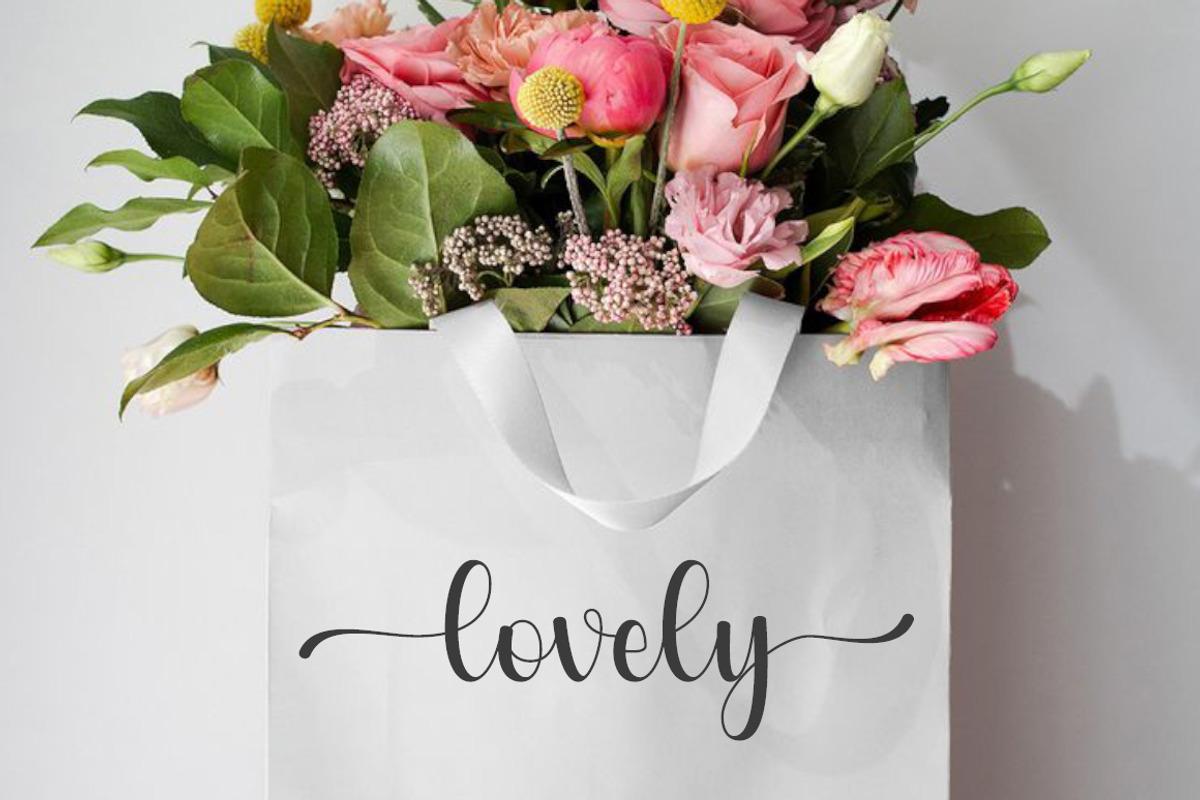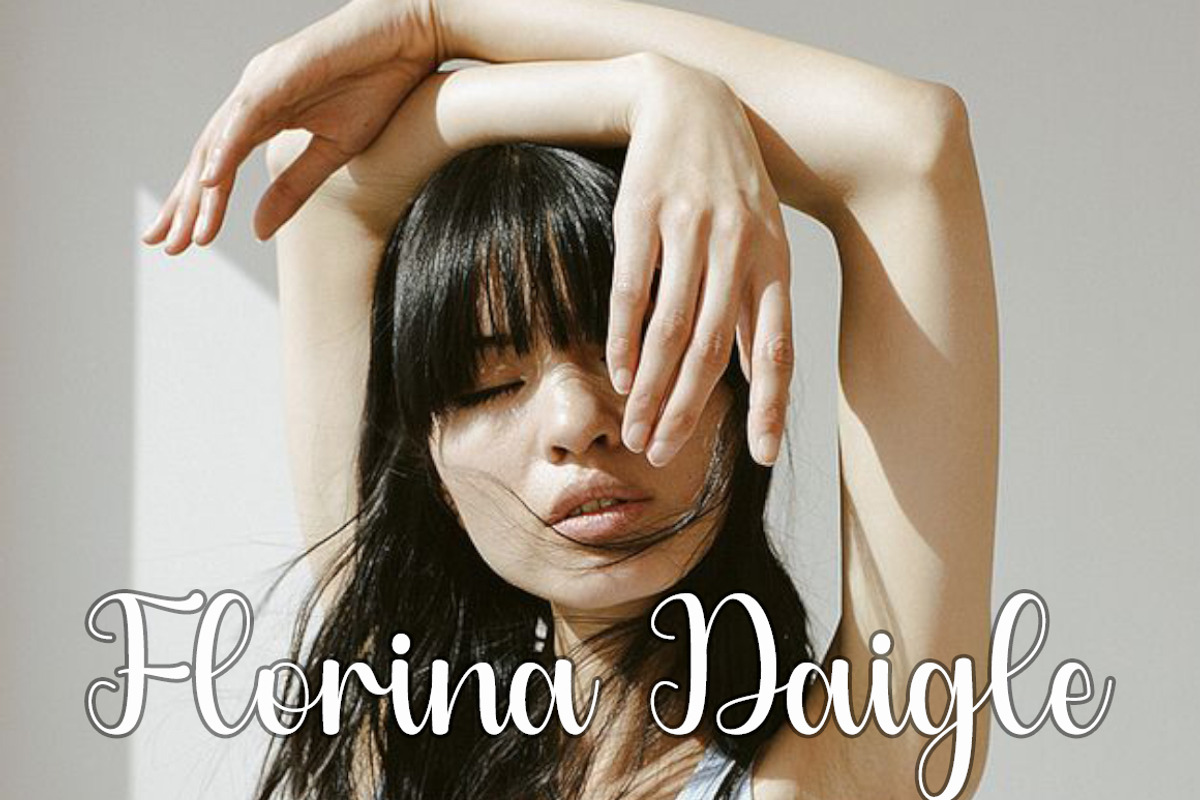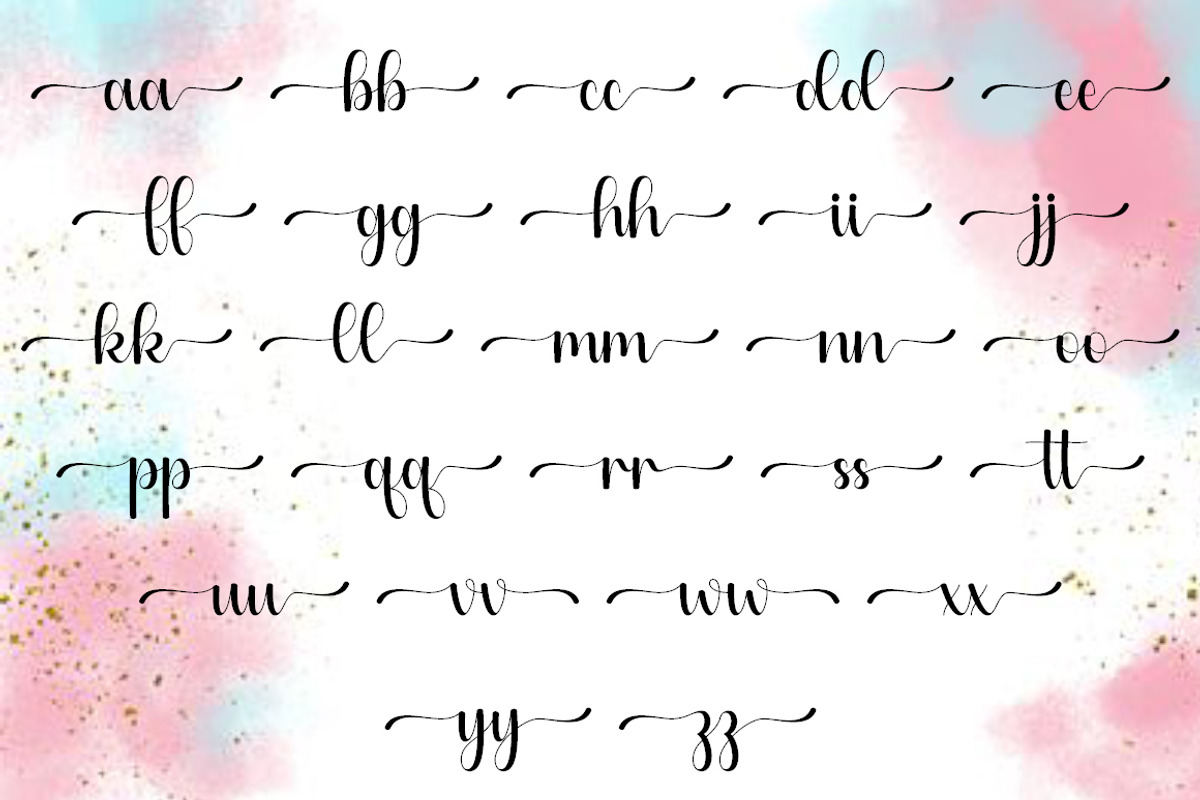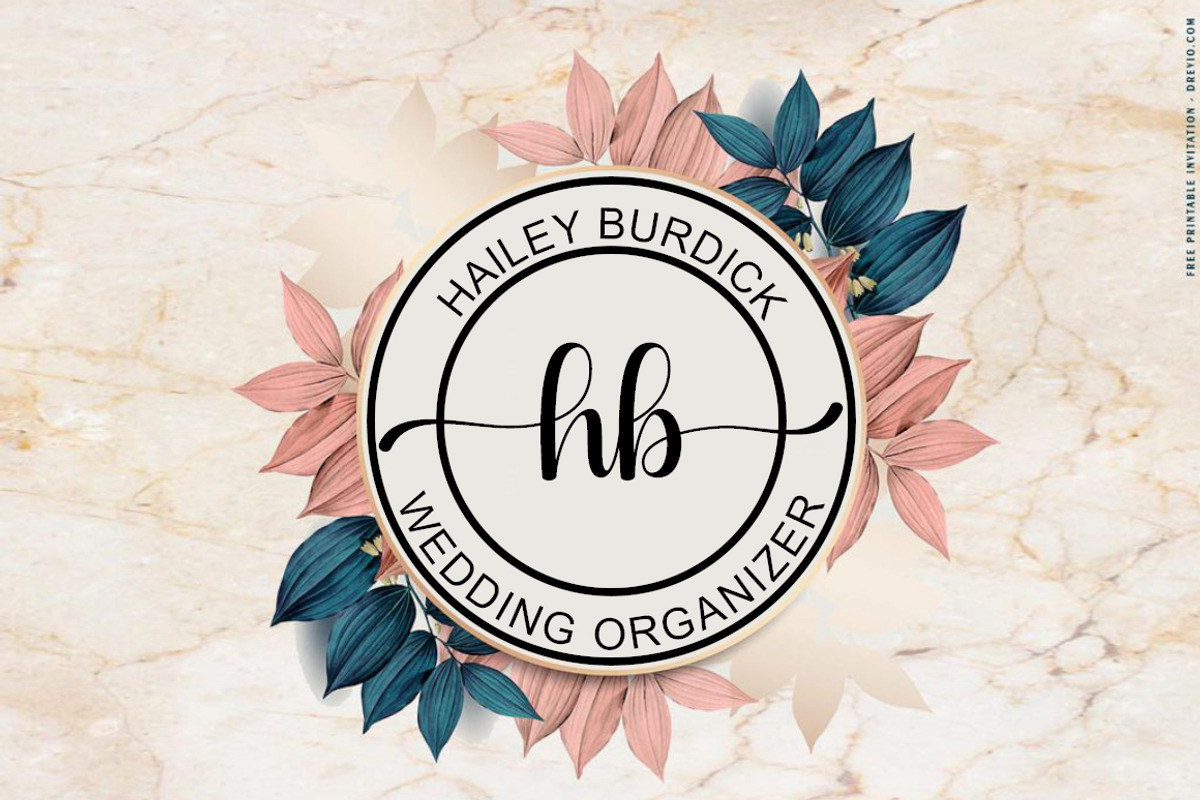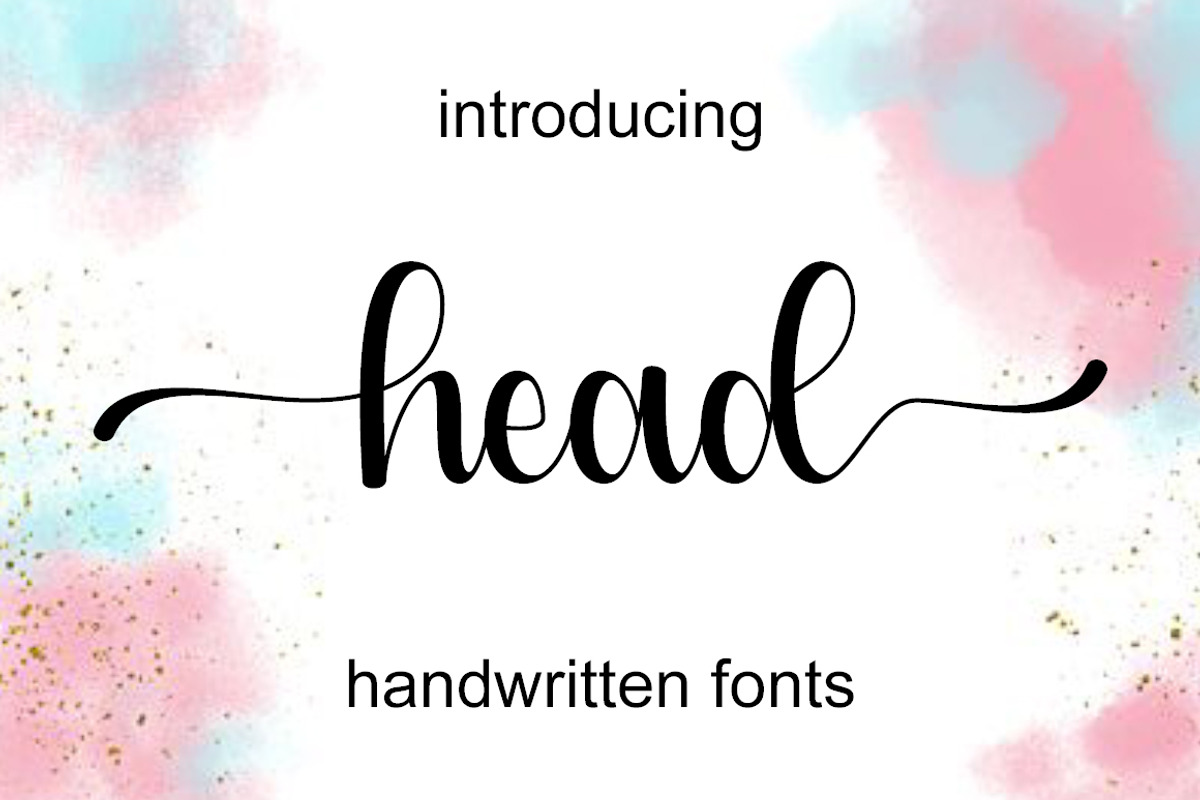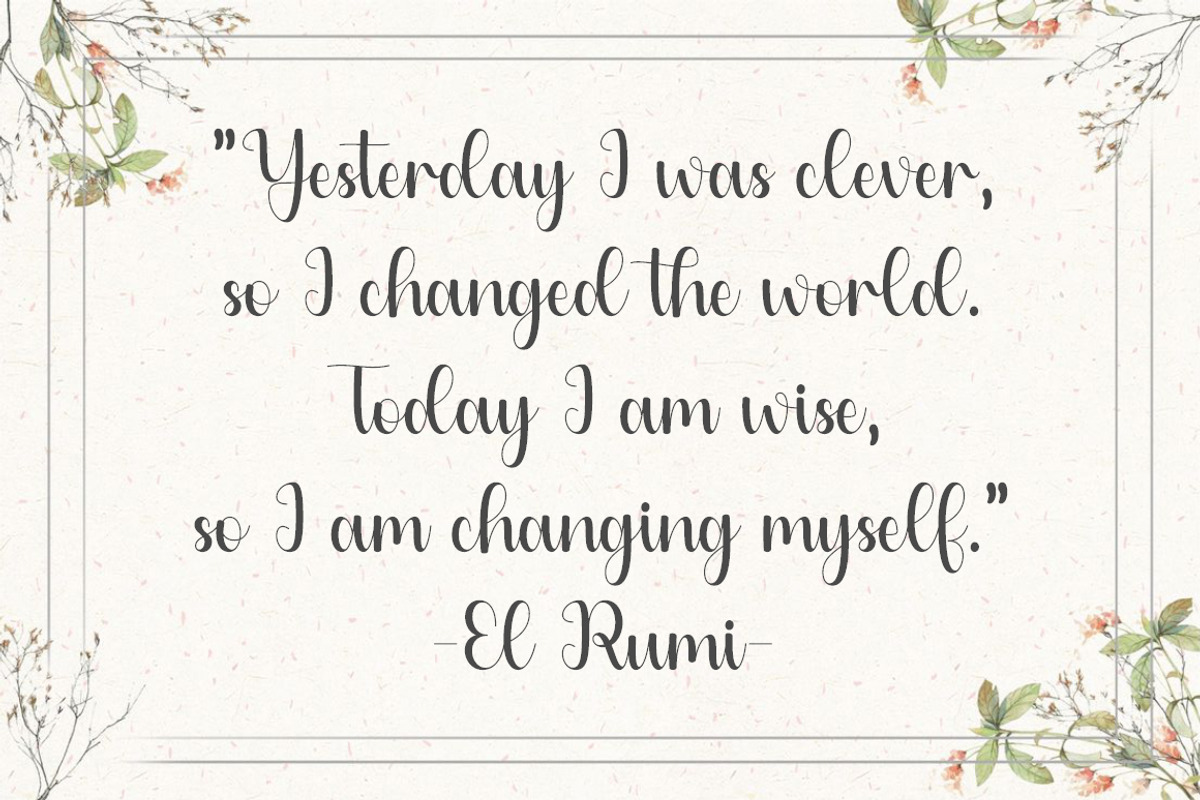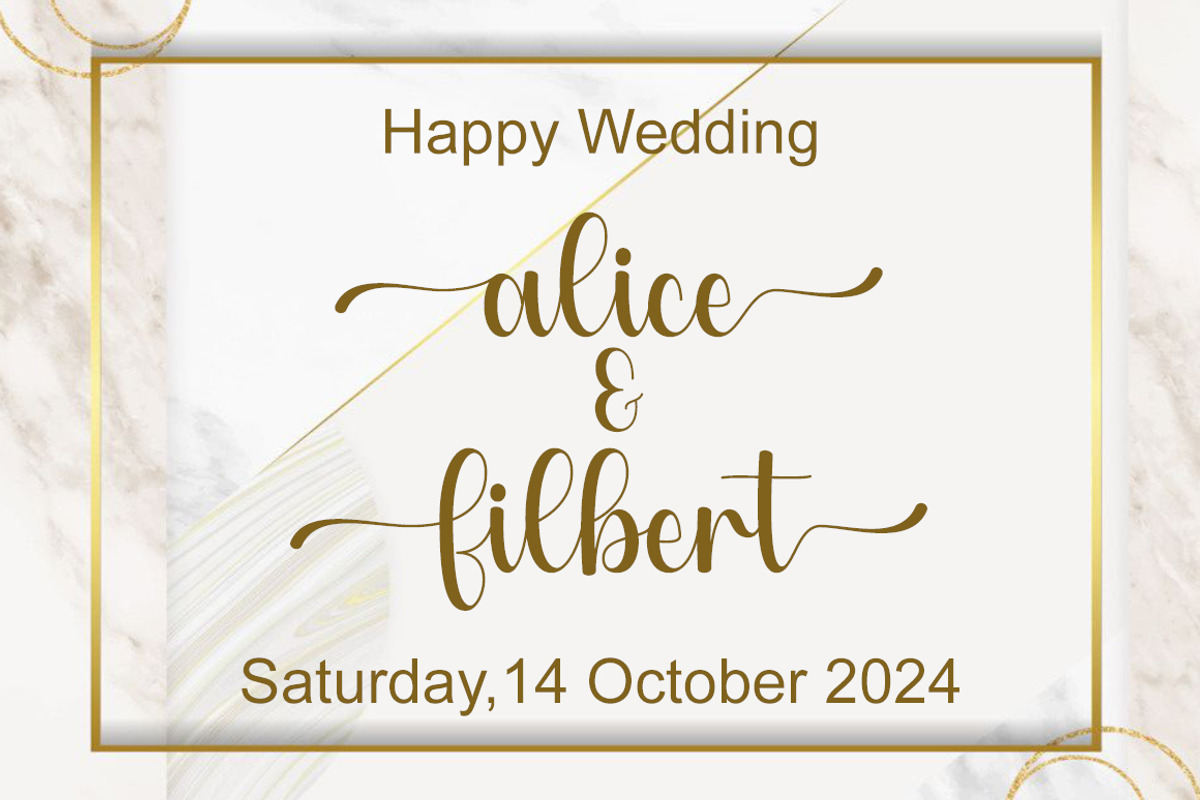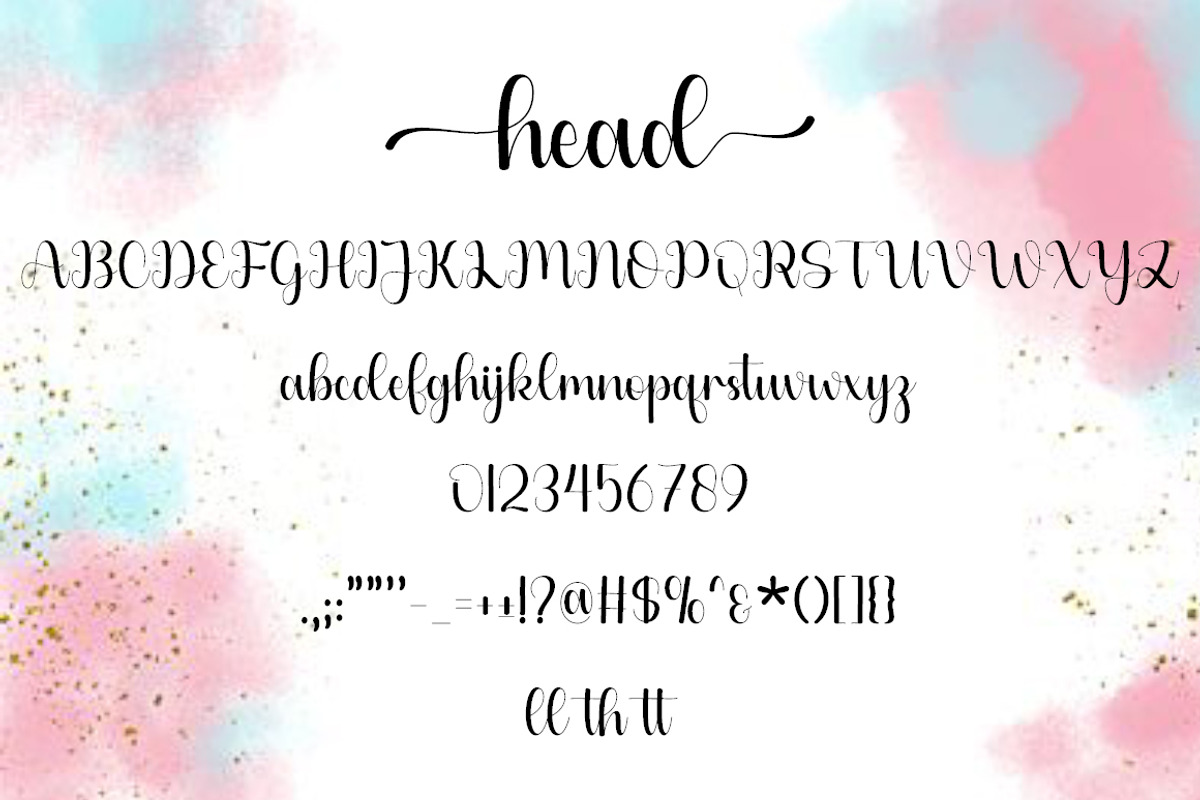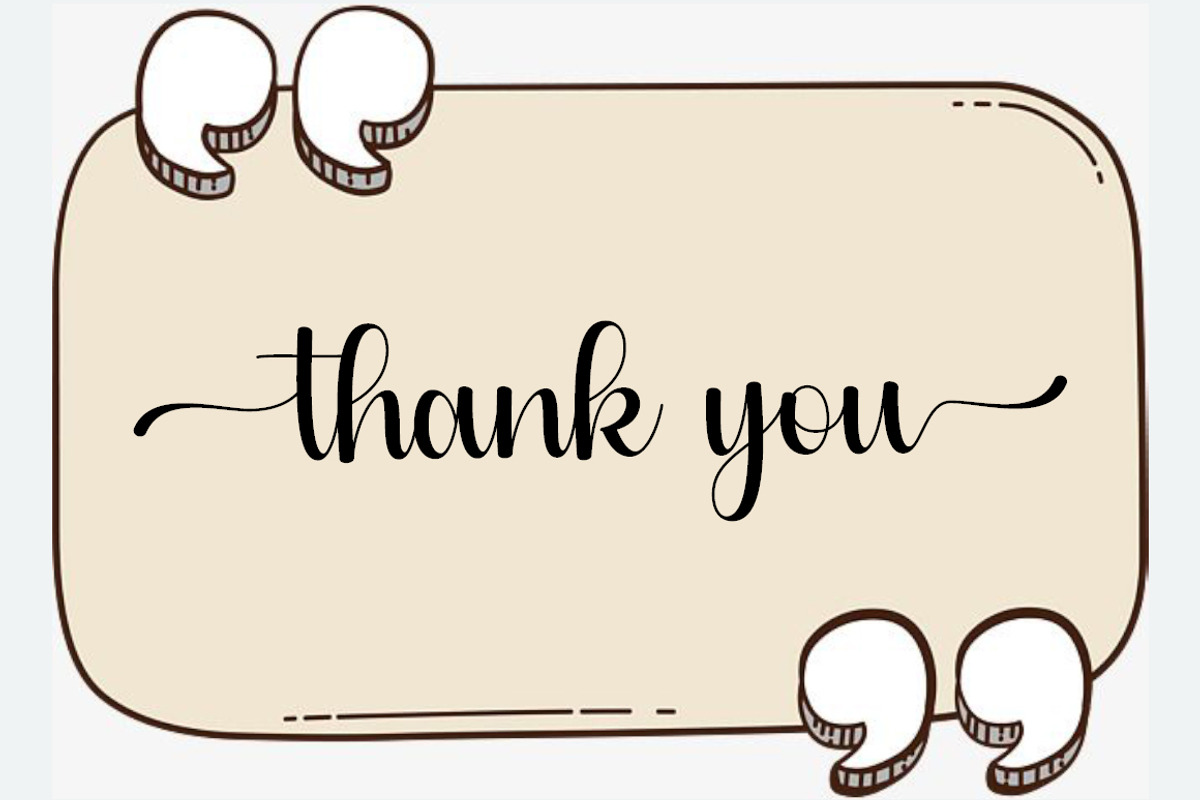
head
Introducing 'Head,' a meticulously crafted handwritten font epitomizing elegance and sophistication. Every stroke of this font exudes refinement and style, lending a personal touch to wedding invitations, heartfelt thank-you notes, noteworthy quotes, greeting cards, and standout logos. Its seamless contours transpose the power of personal connectivity onto business cards, enhancing your brand's distinction with an understated charm. Equipped with unique PUA encoding, 'Head' also opens up a world of creative possibilities with its galore of glyphs and alternates. 'Head' is more than just a typeface; it is the transformation of personal signature into digital elegance. This font is PUA encoded which means you can access all of the glyphs and alternates with ease!